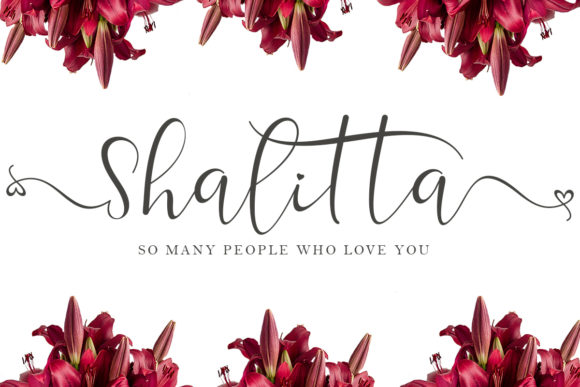
Unleash the charm and sophistication of Shalitta Font, a breathtaking script designed to elevate your creative projects to new heights.
Meet Shalitta, the script font that exudes grace and elegance, leaving an unforgettable impression on your designs. Its delicate strokes and smooth curves dance across the page, creating a visual symphony that captivates the eyes.
With Shalitta, your words transform into art. Its varying baseline and stunning alternates add a touch of playfulness, while the gorgeous glyphs and swashes infuse your designs with a touch of whimsy.
Shalitta is the perfect companion for wedding invitations, thank-you cards, quotes, greeting cards, logos, business cards, and any project that craves a handwritten touch. Its versatility knows no bounds, making it the ideal choice for designers of all levels.
As a PUA-encoded font, Shalitta grants you effortless access to its entire repertoire of glyphs and swashes. Unleash your creativity and explore the endless possibilities, crafting designs that leave a lasting impact.
Embrace Shalitta, the font that embodies timeless beauty and modern sophistication. Its meticulously crafted characters will transform your designs into captivating masterpieces, leaving your audience spellbound.